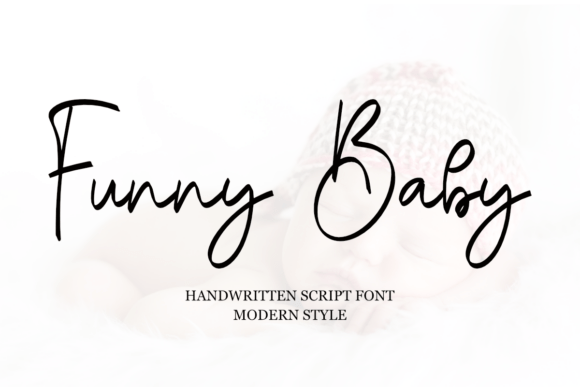
Introducing Funny Baby Font: The Perfect Blend of Elegance and Sweetness
In the world of typography, fonts play a crucial role in conveying the tone and personality of a brand. For businesses and individuals looking for a font that exudes elegance and sweetness, Funny Baby Font is an excellent choice. This modern handwritten script font has gained popularity for its unique blend of sophistication and playfulness, making it ideal for various design projects.
What is Funny Baby Font?
Funny Baby Font is a modern handwritten script font designed to capture the essence of elegance and sweetness. Its flowing strokes and stylish curves create a soft, sophisticated look that is perfect for designs that require a touch of whimsy. This font is carefully crafted to provide a unique and distinctive feel, setting it apart from other fonts in the same category.
Key Features of Funny Baby Font
- Flowing Strokes: The font features smooth, flowing strokes that give it a natural and effortless look.
- Stylish Curves: The curves in Funny Baby Font are carefully designed to add a touch of elegance and sophistication.
- Handwritten Feel: The font has a genuine handwritten feel, making it perfect for designs that require a personal touch.
- Modern and Fresh: Funny Baby Font has a modern and fresh look, making it suitable for contemporary designs.
Ideal Use Cases for Funny Baby Font
Funny Baby Font is a versatile font that can be used in various design projects. Here are some of the ideal use cases:
- Baby Brands: The font’s sweet and elegant look makes it perfect for baby brands, including logos, packaging, and marketing materials.
- Invitations: Funny Baby Font is ideal for creating beautiful and stylish invitations for special occasions, such as weddings, baby showers, and birthday parties.
- Photography Logos: The font’s elegant and sophisticated look makes it suitable for photography logos, particularly for photographers who specialize in family, baby, or wedding photography.
- Stationery and Packaging: Funny Baby Font can be used to create stylish stationery, including greeting cards, gift tags, and product packaging.
Benefits of Using Funny Baby Font
Using Funny Baby Font in your design projects offers several benefits, including:
- Unique and Distinctive: The font’s unique and distinctive look helps to set your brand or design apart from others.
- Elegant and Sophisticated: Funny Baby Font adds a touch of elegance and sophistication to your designs, making them more visually appealing.
- Flexibility: The font can be used in various design projects, from logos and branding to invitations and stationery.
- Easy to Read: Funny Baby Font is easy to read, making it suitable for body text and headlines.
Tips and Tricks for Using Funny Baby Font
Here are some tips and tricks to help you get the most out of Funny Baby Font:
- Pair with Other Fonts: Experiment with pairing Funny Baby Font with other fonts to create a unique and visually appealing combination.
- Use in Headlines and Titles: Use Funny Baby Font in headlines and titles to add a touch of elegance and sophistication.
- Adjust Font Size: Experiment with different font sizes to create visual hierarchy and emphasis.
- Add Effects and Textures: Consider adding effects and textures to Funny Baby Font to give it a more unique and creative look.
In conclusion, Funny Baby Font is a beautiful and versatile font that offers a unique blend of elegance and sweetness. Its flowing strokes, stylish curves, and handwritten feel make it ideal for various design projects, from baby brands and invitations to photography logos and stationery. With its flexibility, ease of use, and range of benefits, Funny Baby Font is an excellent choice for designers and businesses looking to add a touch of whimsy and sophistication to their designs.